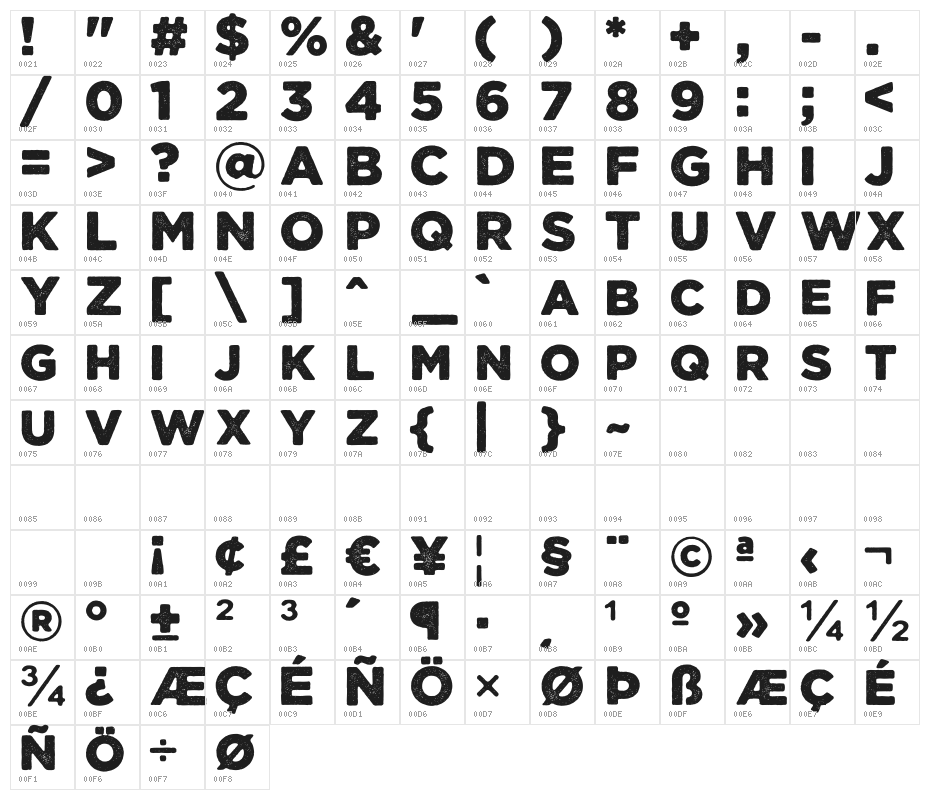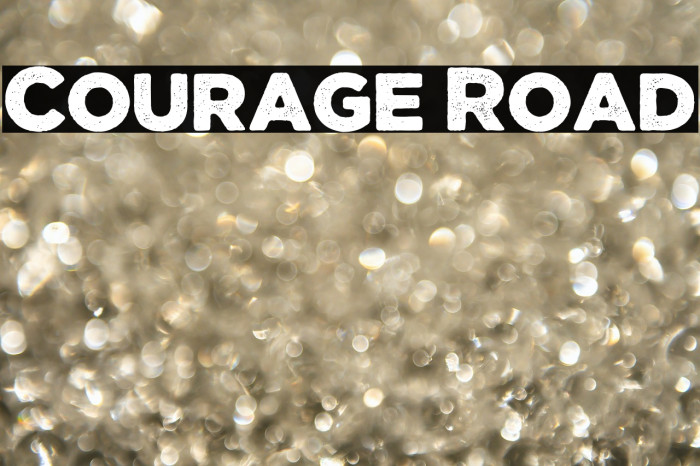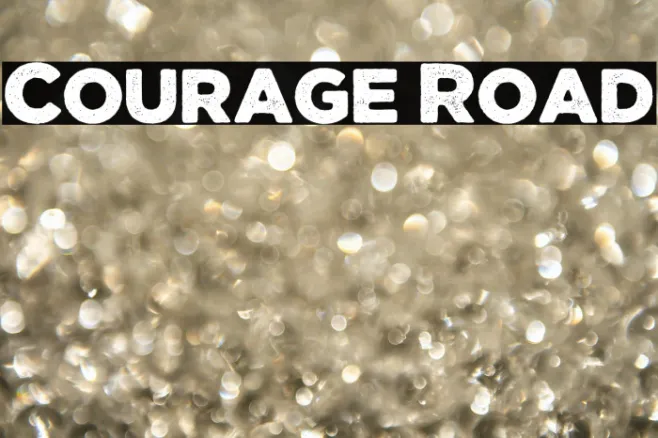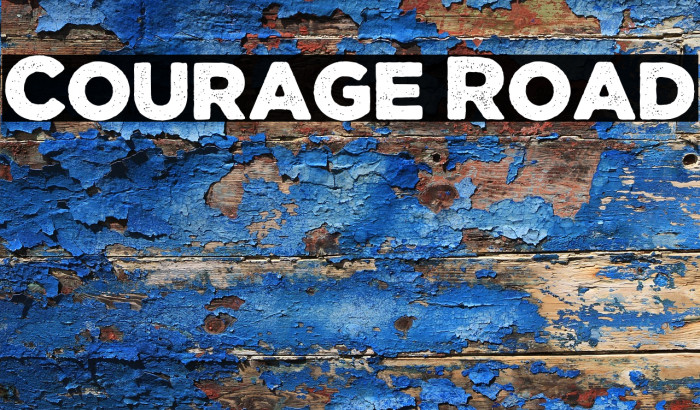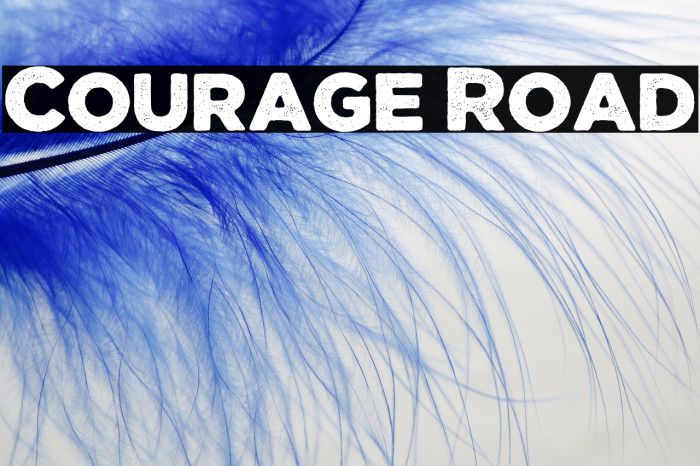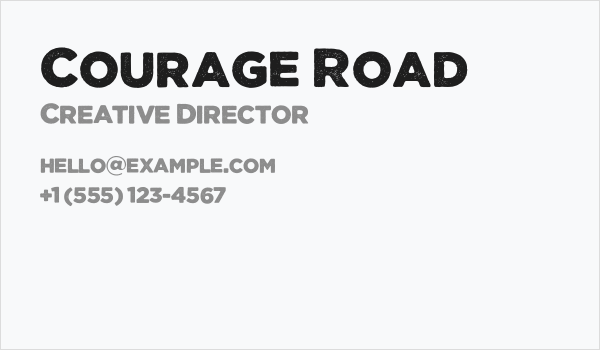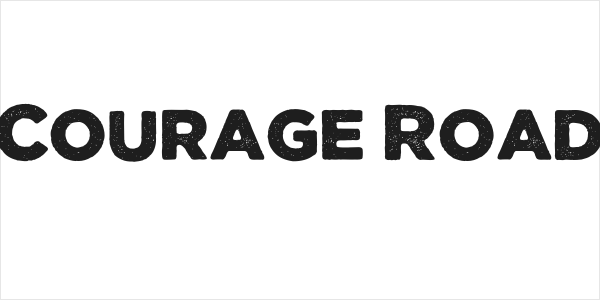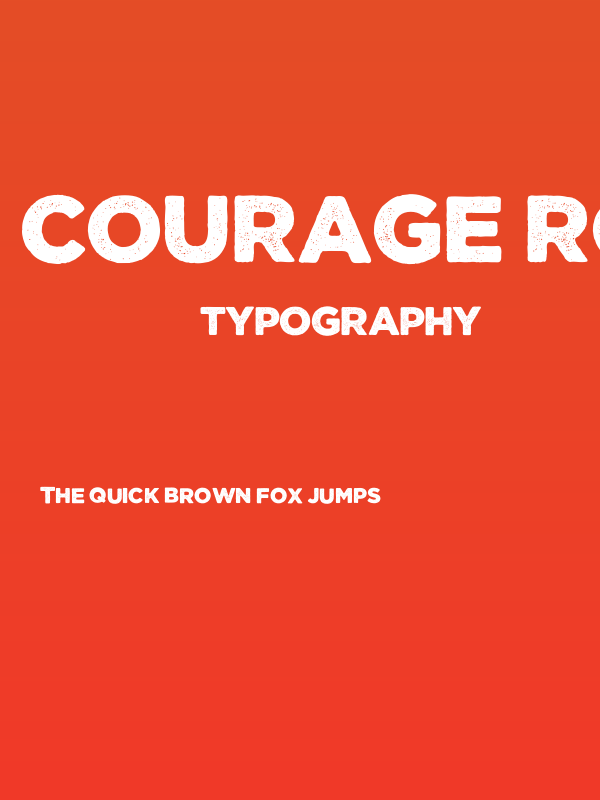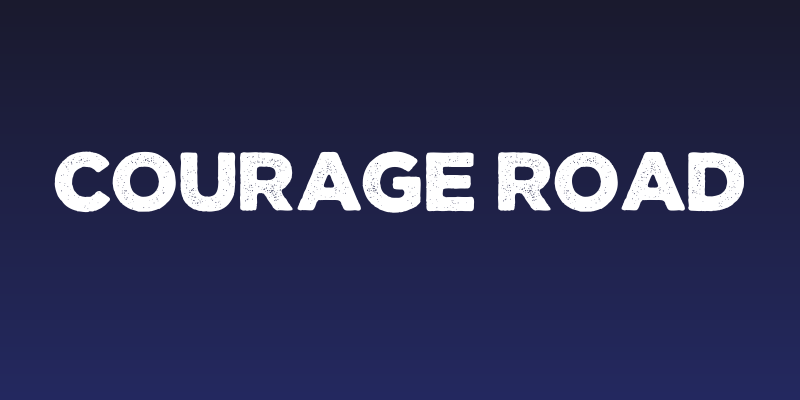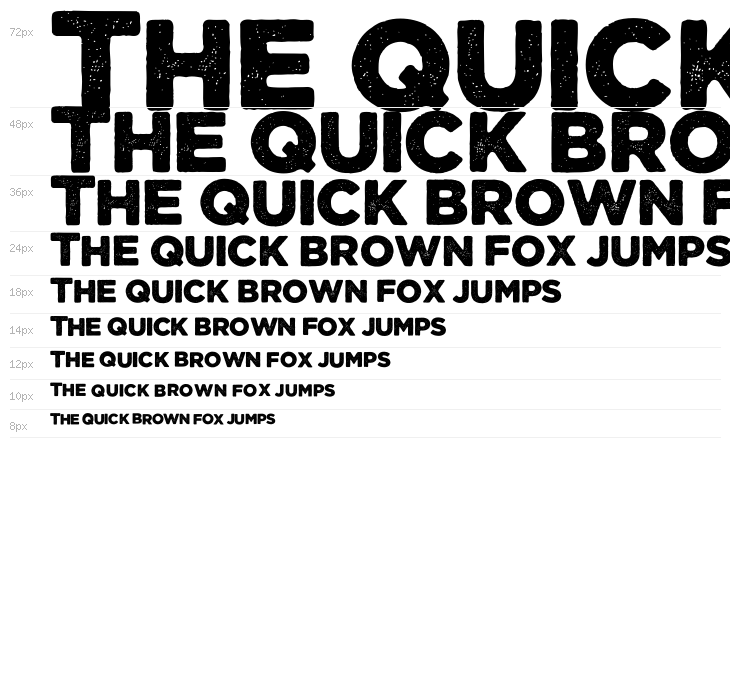
Courage Road Font
Courage Road Description
This bold and textured font features a distressed, vintage appearance that adds character and depth to any design. The uppercase letters are robust and evenly spaced, providing a strong visual impact. The numbers and special characters maintain the same distressed style, ensuring consistency across all text elements. This font's rugged texture makes it ideal for projects that require a touch of nostalgia or a handcrafted feel. Its boldness ensures readability while the unique texture adds an artistic flair.
| Proposed Projects | Ideal for posters, branding, packaging, and any design needing a vintage or handcrafted aesthetic. |